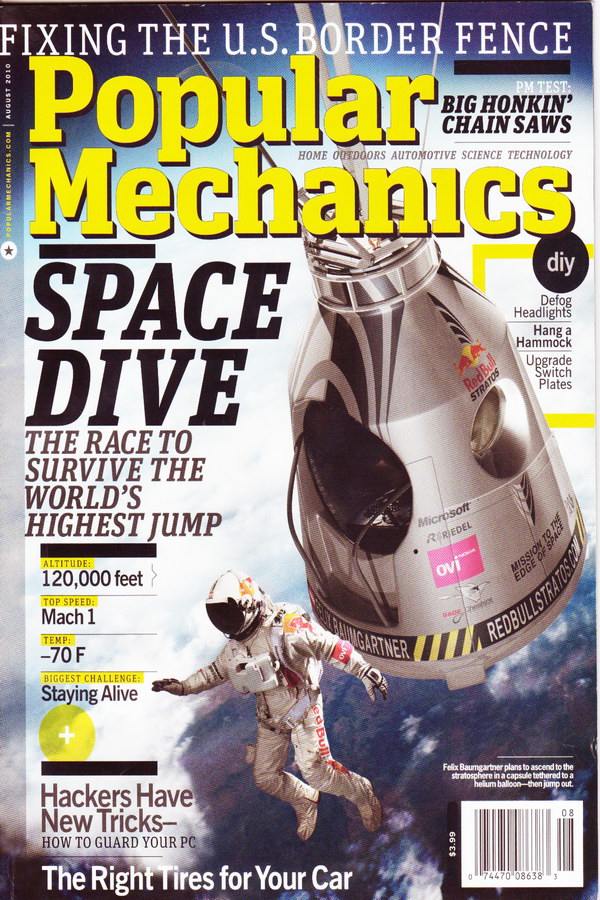
Popular Mechanics Font
BookPopular Mechanics is an American magazine that covers various topics related to science, technology, and engineering. It was first published in 1902 and has since become a well-known source for DIY projects, product reviews, and innovation news.
Christian Schwartz designed the Popular typeface for Popular Mechanics' nameplate. It blends the no-nonsense engineering charm of DIN with structure from the strong slab serifs Stymie, Memphis & Rockwell. The font family has 11 styles with corresponding italics. More info is available here.